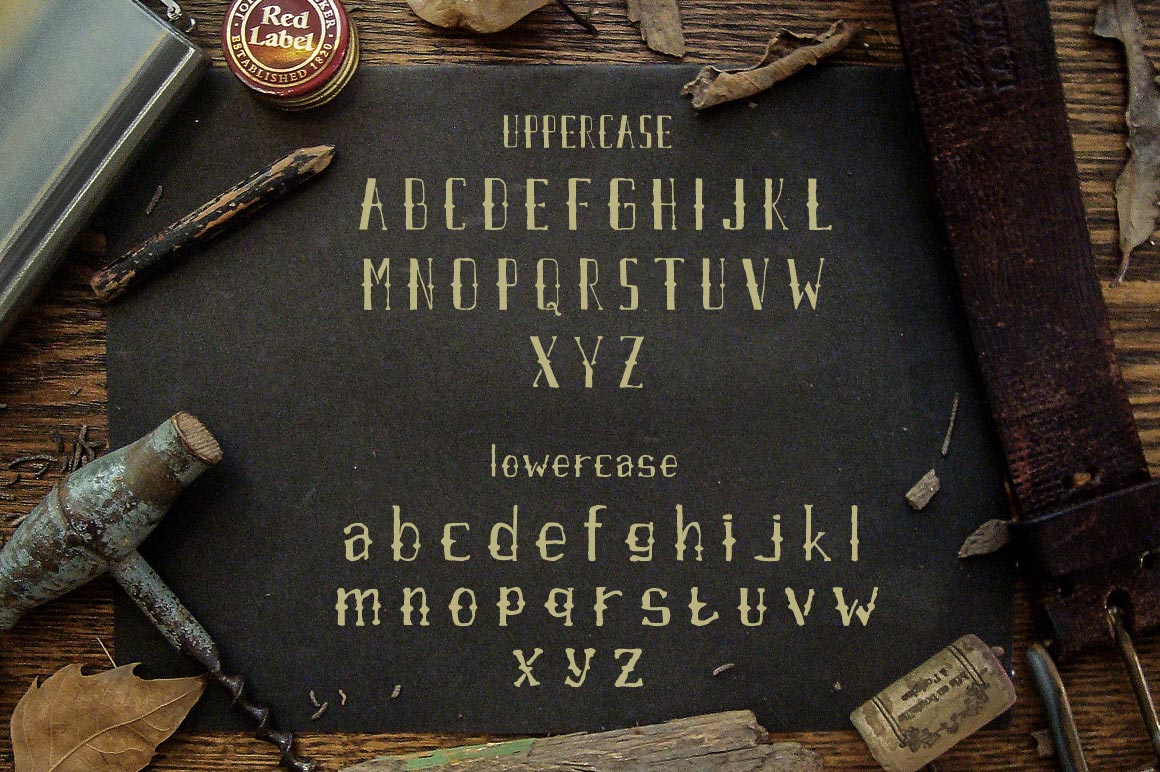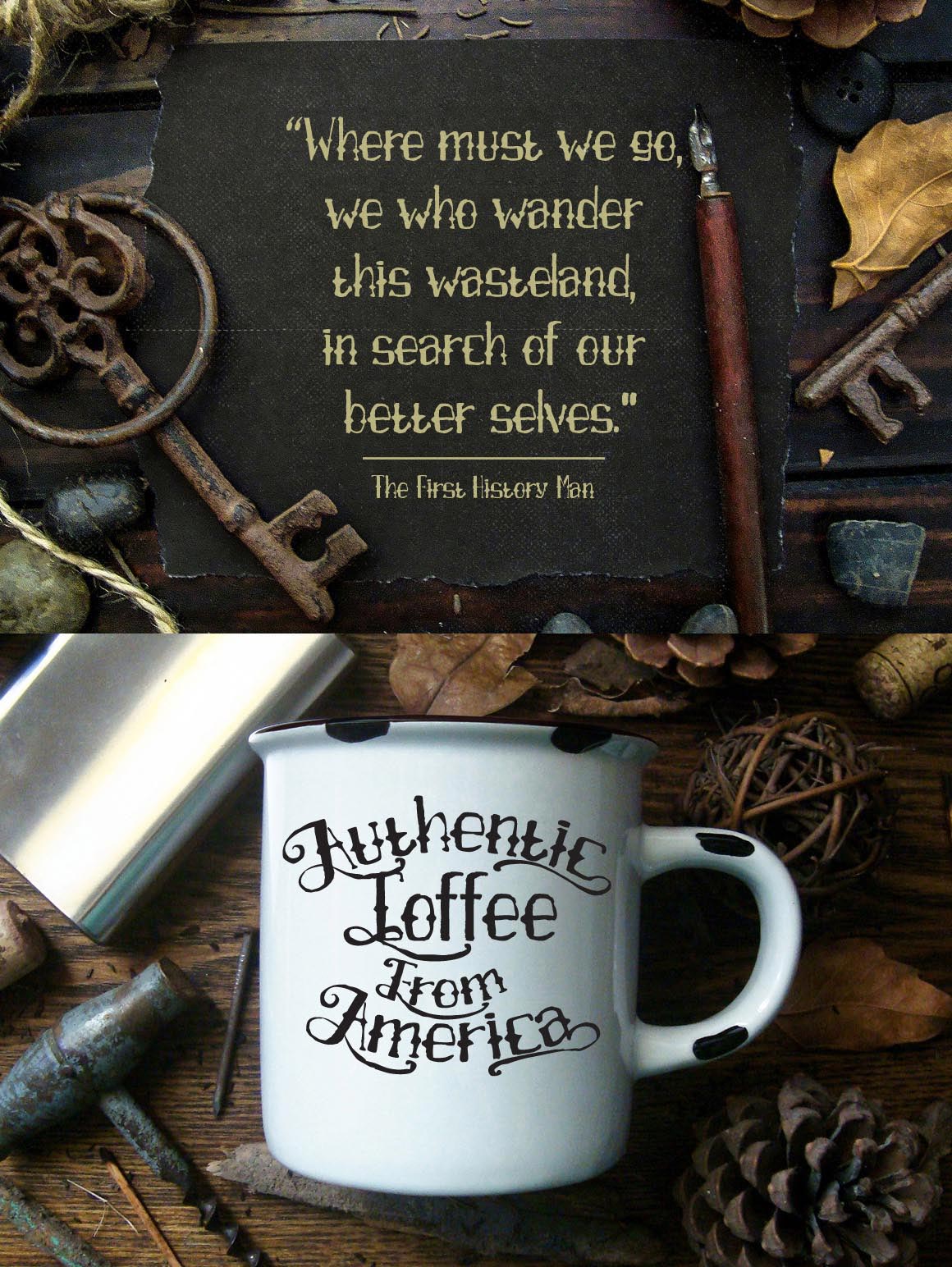
Airpena – Free Font
This creative handwritten style font is from TSV Creative. Great for your new vintage style or creative projects. Download and enjoy 😉